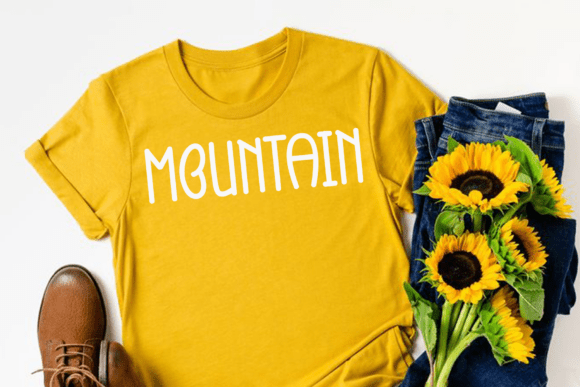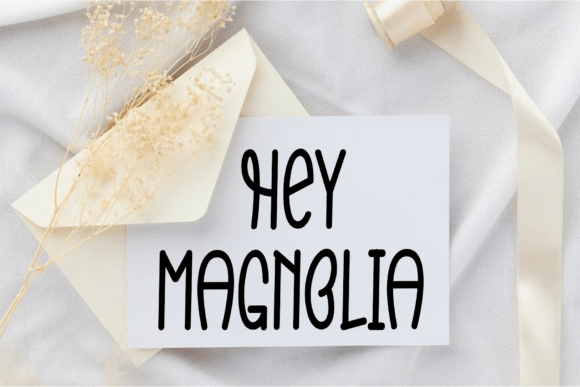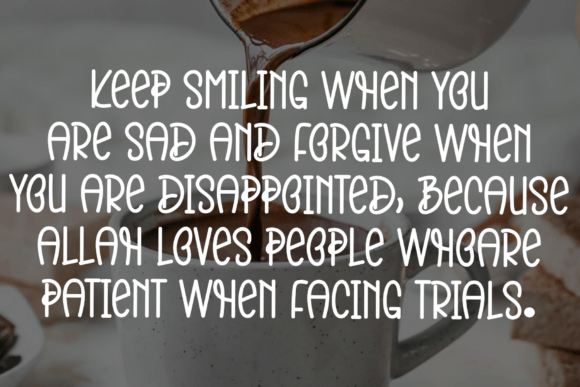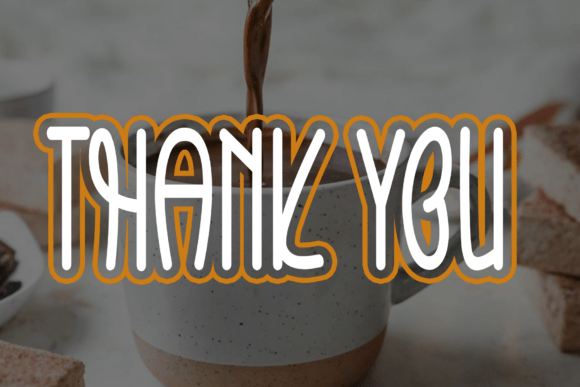
Introducing Choco Juice Font: The Sweetest Addition to Your Design Projects
Are you looking for a font that can add a rich, fluid energy to your creative projects? Look no further than Choco Juice, a modern display font designed to make a high-impact visual statement. With its unique hand-inked quality and smooth, undulating letterforms, Choco Juice is the perfect choice for designers and crafters who want to add a touch of artisanal flair to their work.
The Inspiration Behind Choco Juice
Choco Juice is a font that was inspired by the pour of a thick chocolate syrup. Its tall, condensed letterforms are designed to evoke the smooth, flowing motion of liquid chocolate, making it the perfect choice for projects that require a bold, eye-catching font. Whether you’re designing a logo for an artisanal cafe, creating packaging for an organic snack, or crafting a social media header for a foodie brand, Choco Juice is the perfect choice.
Key Features of Choco Juice
So what sets Choco Juice apart from other fonts? Here are just a few of its key features:
- Smooth, undulating letterforms: Choco Juice features smooth, flowing letterforms that are designed to mimic the pour of a thick chocolate syrup.
- Hand-inked quality: The font has a unique hand-inked quality that gives it a personal, artisanal feel.
- Rhythmic curves: The font’s rhythmic curves and bold, outlined silhouette make it perfect for high-impact visual statements.
- Tall and condensed: Choco Juice is a tall, condensed font that is designed to make a big impact in a small space.
Use Cases for Choco Juice
So what types of projects is Choco Juice best suited for? Here are just a few ideas:
- Artisanal cafe branding: Choco Juice is the perfect choice for artisanal cafes that want to add a touch of personality to their branding.
- Independent dessert bar logos: The font’s bold, eye-catching design makes it perfect for independent dessert bars that want to stand out from the crowd.
- Organic snack packaging: Choco Juice is a great choice for organic snack packaging that requires a font that is both bold and natural-looking.
- High-energy foodie social media headers: The font’s smooth, flowing design makes it perfect for high-energy foodie social media headers that need to grab attention.
Why Choose Choco Juice?
So why should you choose Choco Juice for your design projects? Here are just a few reasons:
- Unique and eye-catching: Choco Juice is a unique and eye-catching font that is sure to make your projects stand out.
- High-quality design: The font is designed to high-quality standards, ensuring that it will look great in any project.
- Versatile: Choco Juice is a versatile font that can be used in a wide range of projects, from branding and packaging to social media headers and more.
In conclusion, Choco Juice is a modern display font that is perfect for designers and crafters who want to add a touch of artisanal flair to their projects. With its unique hand-inked quality, smooth undulating letterforms, and bold, outlined silhouette, Choco Juice is the perfect choice for high-impact visual statements. Whether you’re designing a logo for an artisanal cafe, creating packaging for an organic snack, or crafting a social media header for a foodie brand, Choco Juice is the perfect choice.